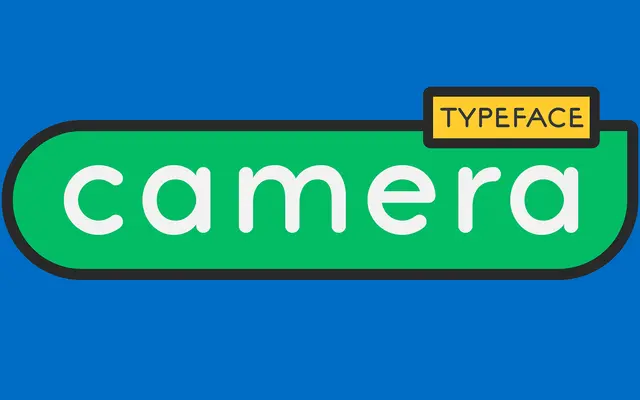
Camera specimen from Dharma Type
A vintage-flavoured sans-serif with Art Deco proportions, ligatures and small capitals suited to retro-inspired design work.
Drawn from the advertising typography of the late 1800s to early 20th century, it brings the decorative warmth of Art Deco into a legible, relatively simple sans. Ligatures and small capitals extend its usefulness into more considered layouts. A practical choice for packaging, branding or editorial work that calls for period character without heavy ornamentation.
A sans-serif with Art Deco proportions and decorative qualities drawn from late 19th and early 20th century advertising typography, placing it firmly in the decorative/display end of the sans-serif spectrum.